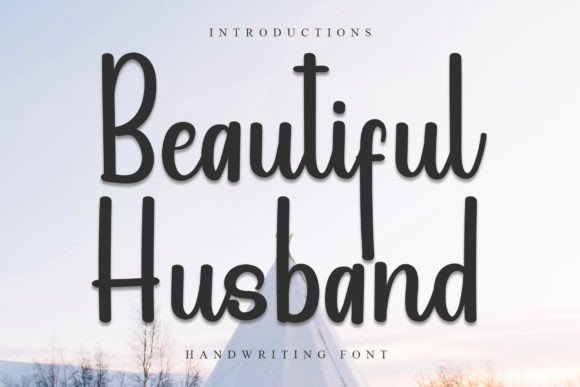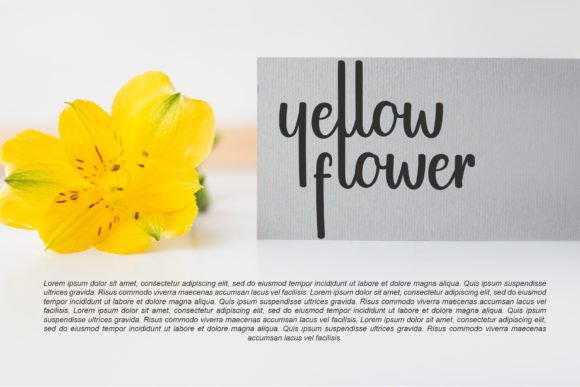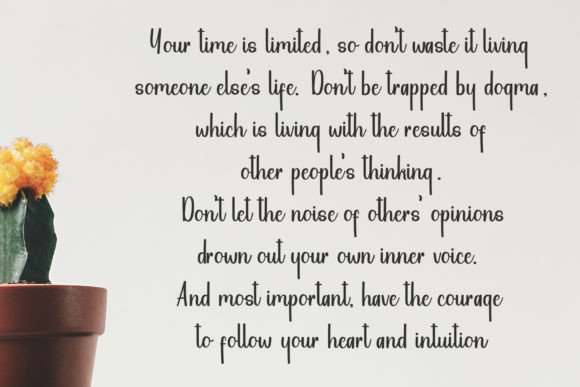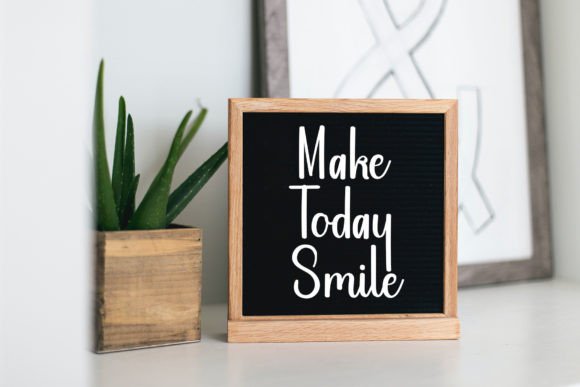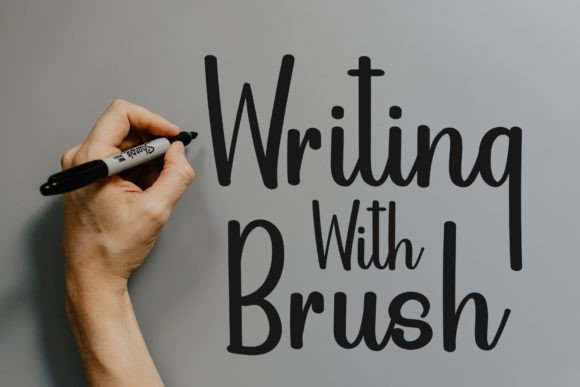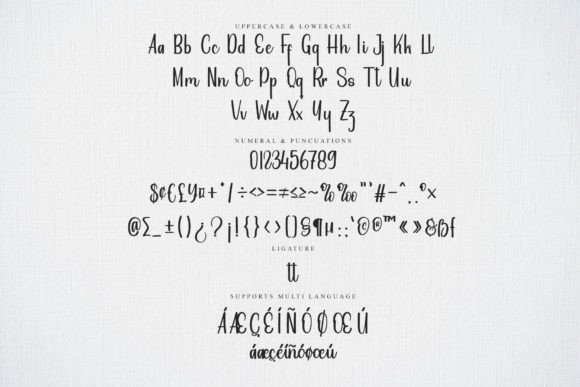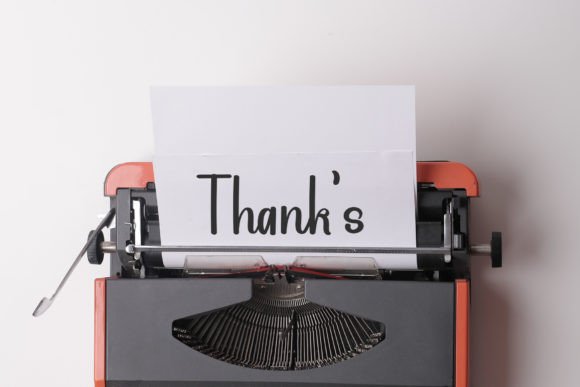
Beautiful Husband Font
Beautiful Husband is a charming handwritten font that exudes loveliness, making it a perfect choice for a wide range of creative projects. Whether you’re working on magazines, crafts, holiday decorations, logos, labels, invitations, cards, or any other design endeavor, this font is a delightful addition to your library.
The handwritten charm of Beautiful Husband brings a personal touch to your text, making it well-suited for projects that require a warm and inviting feel. Its versatility shines through in various applications, allowing you to create spectacular designs with ease.
Magazines can benefit from the font’s readability and pleasant aesthetic, while crafts and holiday decorations can be infused with a touch of whimsy. Logos and labels can stand out with a unique and lovely flair, and invitations and cards can convey a sense of warmth and friendliness.
Adding Beautiful Husband to your font library opens up a world of creative possibilities. Its lovely design ensures that your designs not only capture attention but also evoke positive emotions. With Beautiful Husband, you can embark on a journey of crafting spectacular designs that leave a lasting impression on your audience.
In summary, Beautiful Husband is more than just a font; it’s a creative tool that enhances the beauty of your designs. Start incorporating it into your projects and witness how this lovely handwritten font transforms your creations into visually spectacular and heartwarming works of art.